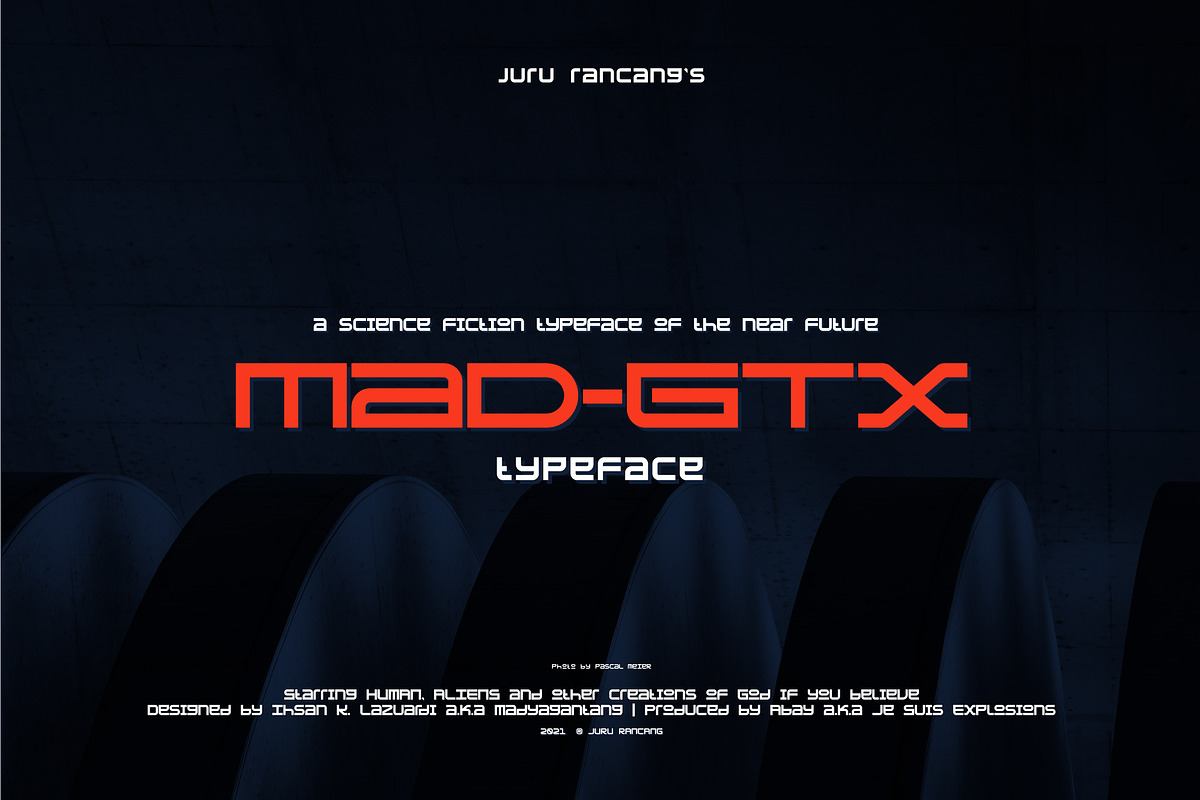
MAD-GTX Typeface Free Download is a bold, aggressive, and futuristic font built for impact. With its angular cuts, mechanical vibes, and cyberpunk flair, MAD-GTX is ideal for gaming titles, tech branding, esport logos, sci-fi posters, and action-packed designs that demand attention.
This typeface screams power and intensity—every letterform is crafted to deliver a punch. Whether you're working on digital artwork, branding a gaming channel, or building a dystopian-themed interface, MAD-GTX offers the edge your design needs.
Its sharp structure and heavy presence make it perfect for headlines, display use, and anywhere you want a high-tech, high-energy aesthetic.